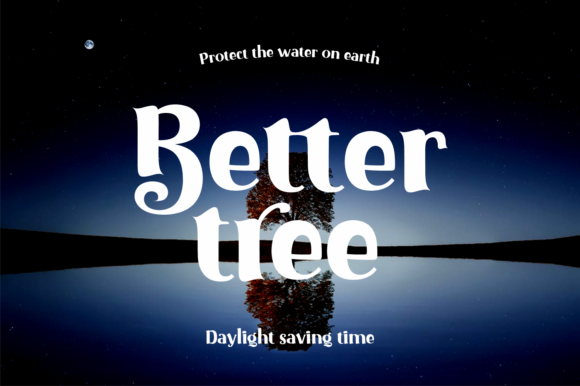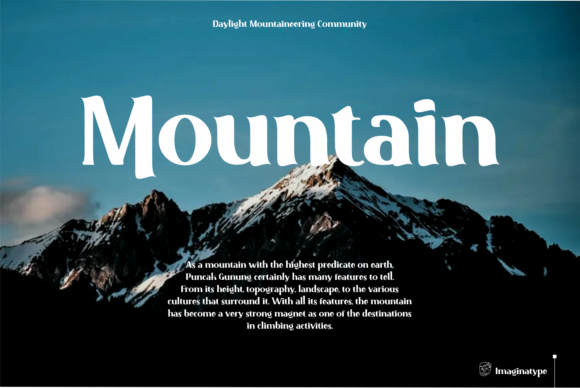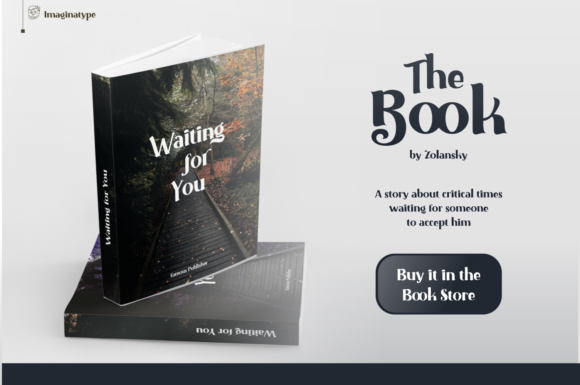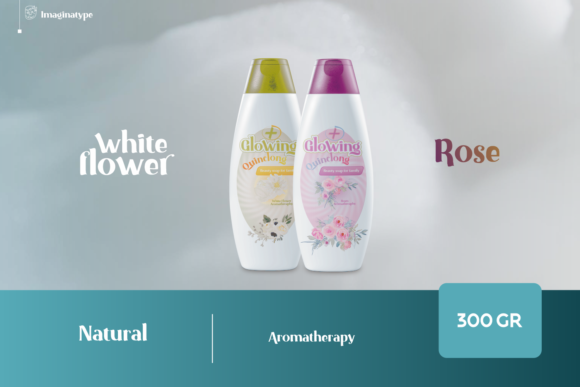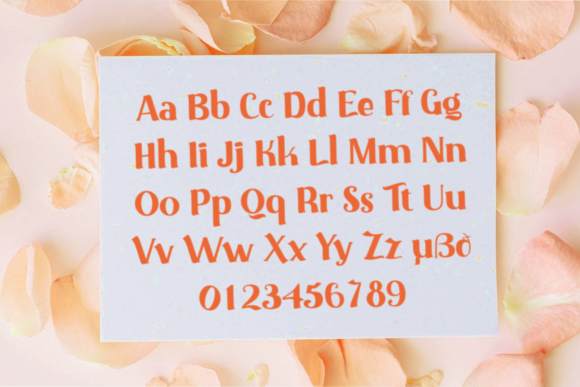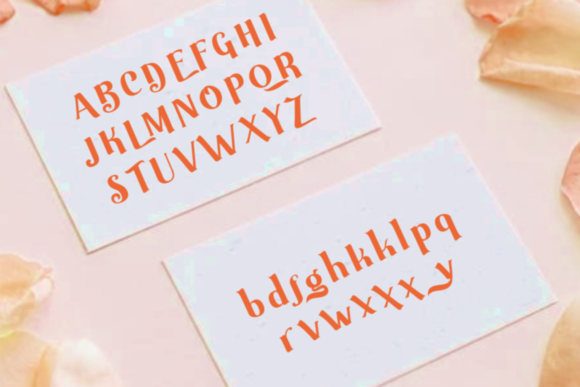
Introducing Daylight Font: Elevate Your Designs with Elegance and Sophistication
In the world of typography, fonts play a crucial role in conveying the tone and personality of a brand, product, or creative project. For designers and crafters seeking a typeface that exudes luxury, modernity, and style, Daylight Font is an exceptional choice. This cool and stylish serif font boasts a unique aesthetic that is sure to elevate your designs and leave a lasting impression.
What Makes Daylight Font Stand Out?
Daylight Font is characterized by its distinctive serif design, which combines classic elegance with a modern twist. The font’s clean lines, precise curves, and carefully crafted letterforms create a sophisticated and refined look that is perfect for a wide range of applications. Whether you’re working on a luxury brand logo, a fashion magazine, or a high-end product catalog, Daylight Font is sure to bring a touch of class and sophistication to your project.
Perfect for Elegant and Luxurious Designs
Daylight Font is specifically designed to meet the needs of designers and crafters who require a high-end typeface for their projects. Its elegant and luxurious feel makes it an ideal choice for:
- Elegant logos: Create a lasting impression with a custom logo that exudes luxury and sophistication.
- Book or movie titles: Add a touch of glamour to your book or movie titles with a font that commands attention.
- Fashion brands: Elevate your fashion brand with a typeface that reflects your commitment to style and quality.
- Magazines and publications: Use Daylight Font to add a touch of elegance to your magazine or publication.
- Clothing and apparel: Create stylish and eye-catching labels, tags, and packaging with Daylight Font.
- Quotes and typography: Use Daylight Font to create stunning typographic quotes that inspire and delight.
Key Features of Daylight Font
Daylight Font offers a range of features that make it an attractive choice for designers and crafters:
- Unique style: Daylight Font boasts a distinctive style that sets it apart from other serif fonts.
- Modern look: The font’s clean lines and precise curves give it a modern and fresh feel.
- Elegant and luxurious: Daylight Font exudes luxury and sophistication, making it perfect for high-end designs.
- Versatile: The font is suitable for a wide range of applications, from logos and titles to magazines and typography.
Tips for Using Daylight Font
To get the most out of Daylight Font, consider the following tips:
- Use it sparingly: Daylight Font is a statement font, so use it sparingly to create maximum impact.
- Experiment with colors: The font looks great in a range of colors, so experiment to find the perfect hue for your design.
- Pair it with other fonts: Daylight Font works well with other fonts, so don’t be afraid to experiment with different pairings.
- Pay attention to spacing: Make sure to adjust the spacing between letters and words to create a clean and elegant look.
Daylight Font is a stylish and elegant serif font that is perfect for designers and crafters seeking to add a touch of luxury and sophistication to their projects. With its unique style, modern look, and versatile design, Daylight Font is an exceptional choice for a wide range of applications. Whether you’re working on a luxury brand logo, a fashion magazine, or a high-end product catalog, Daylight Font is sure to elevate your designs and leave a lasting impression.